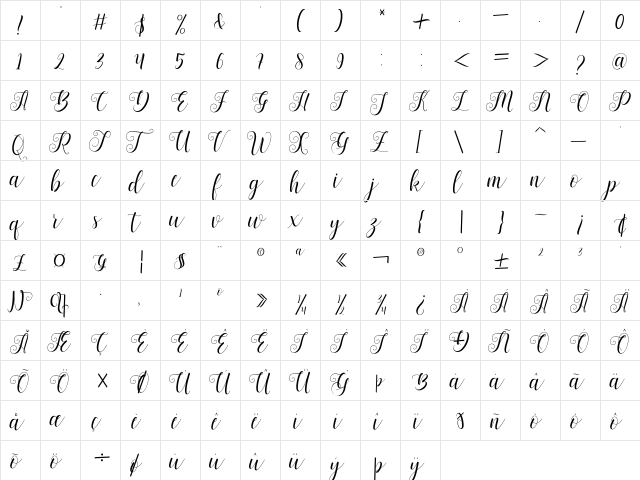
Bertiga Regular
Design Context for Bertiga Typeface
Bertiga is a composed and adaptable typeface that performs quietly and consistently across a wide range of design contexts.